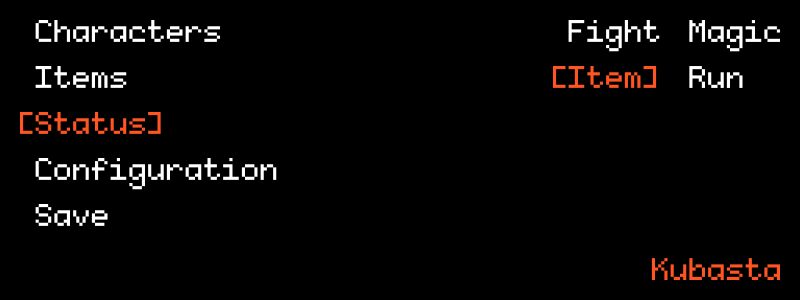
Kubasta font is a monospaced pixel typeface designed by Kai Kubasta.
It was designed with readability in mind. The glyphs are easily distinguishable from one another and legible even in small sizes. Its perfectly applicable for retro style interfaces and games.
An earlier version was created with BitFontMaker2 in 2014 and used in Beat Cop by Pixel Crow.